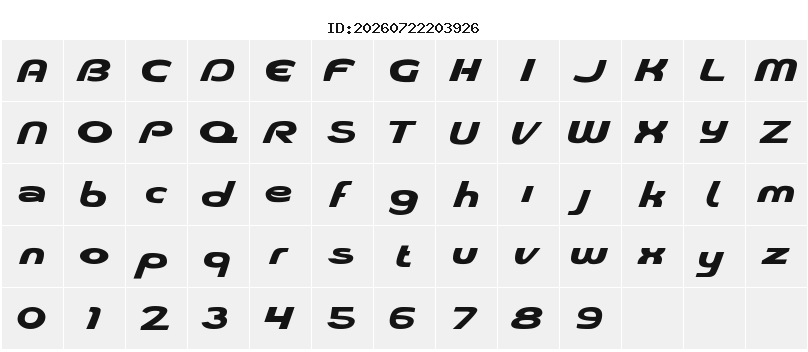
• Font Name: Musieer
About Musieer.ttf
Musieer.ttf is a modern, elegant sans-serif font designed for ultimate readability and visual harmony. Perfect for branding, headlines, web design, and print materials.